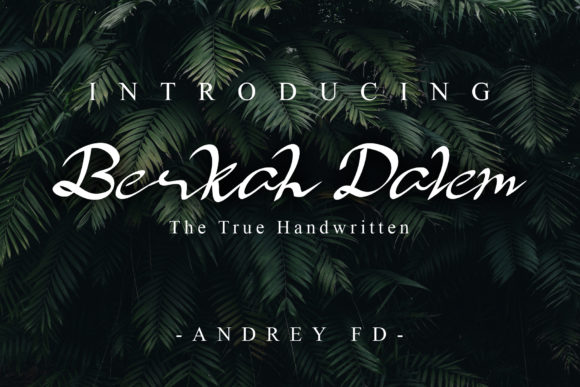
The Berkah Dalem Font: A Hidden Gem for Creative Projects
I’ll never forget the time I was working on a design project for a client’s wedding invitation. I had a clear vision of what I wanted to create, but something was missing – the perfect font. I scoured the internet, tried out countless fonts, but none seemed quite right. That was until I stumbled upon the Berkah Dalem font. ✨
This unique and charming font has become a staple in my design toolkit, and I’m excited to share its versatility with you. Whether you’re a designer, crafter, or creative hobbyist, Berkah Dalem is sure to impress.
• ✅ Unique and charming handwritten style
• ✅ Versatile and suitable for a wide range of applications
• ✅ Easy to read and understand, even at small sizes
• ✨ Beautifully crafted with attention to detail
While Berkah Dalem is an excellent font, it’s not without its quirks. 🤔 For example:
• ⚠️ Some characters may not work well in all contexts, such as in combination with certain symbols or emojis
• ⚠️ Limited language support, so it’s best used for English or similar languages
The Story Behind Berkah Dalem
Berkah Dalem is a font created with passion and dedication. Its story began with a designer who wanted to craft a unique and charming font that would inspire creativity. With a focus on elegance and readability, Berkah Dalem was born.
Font Name Berkah Dalem Font
Author andreyfontdesign
Q: What is the Berkah Dalem font best used for?
A: Berkah Dalem is a versatile font suitable for a wide range of applications, including design projects, logos, labels, and more.
Q: Is Berkah Dalem easy to read?
A: Yes, Berkah Dalem is designed to be easy to read and understand, even at small sizes.